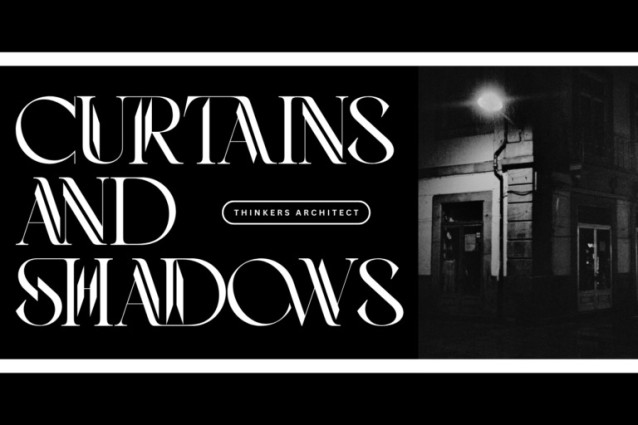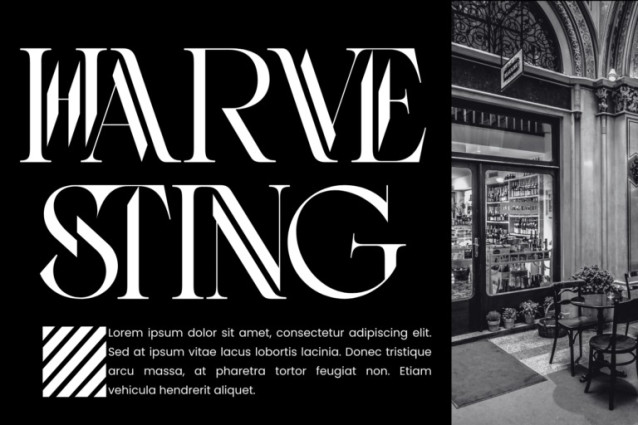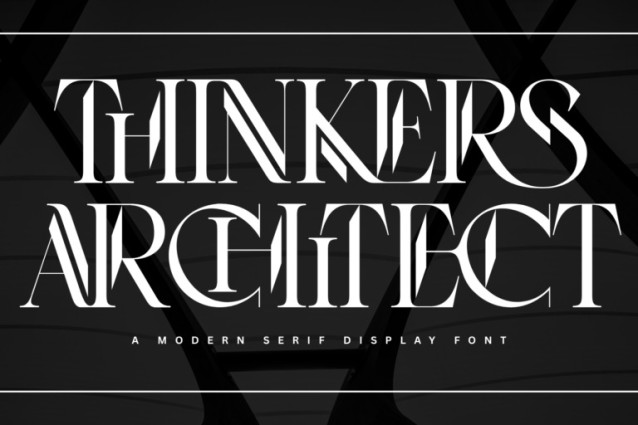
Thinkers Architect Font
Thinkers Architect – Elegant Serif Font, a striking Modern Serif Display Font that fuses timeless elegance with a bold, geometric edge. Each character boasts high-contrast strokes and precision-cut triangular terminals, creating a captivating interplay of thick and thin lines. The artful insets and carefully carved serifs lend a sophisticated, architectural feel—perfect for commanding attention in headlines, luxury branding, editorial layouts, and fashion identity.
Thinkers Architect includes:
Full Uppercase & Lowercase alphabets
Over 100 Special Ligatures for seamless, decorative compositions
Complete Numerals & Punctuation
Accented Characters for global language support
About 100 ligatures combined with Stylistic Alternates Font: